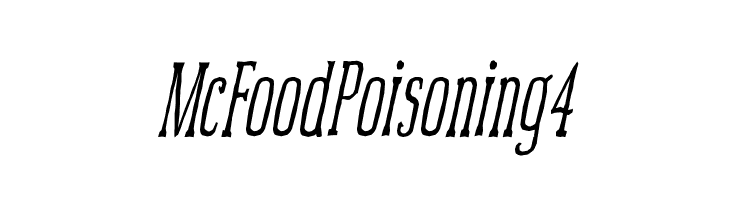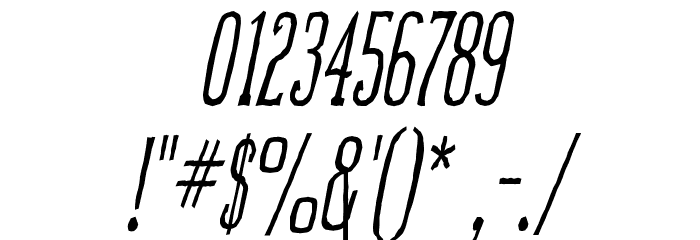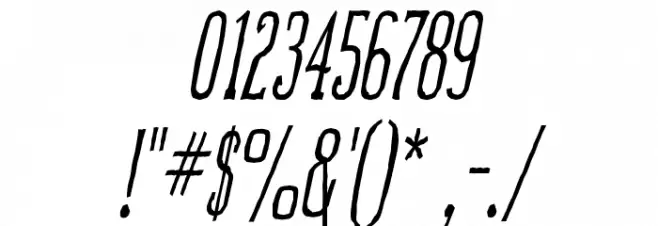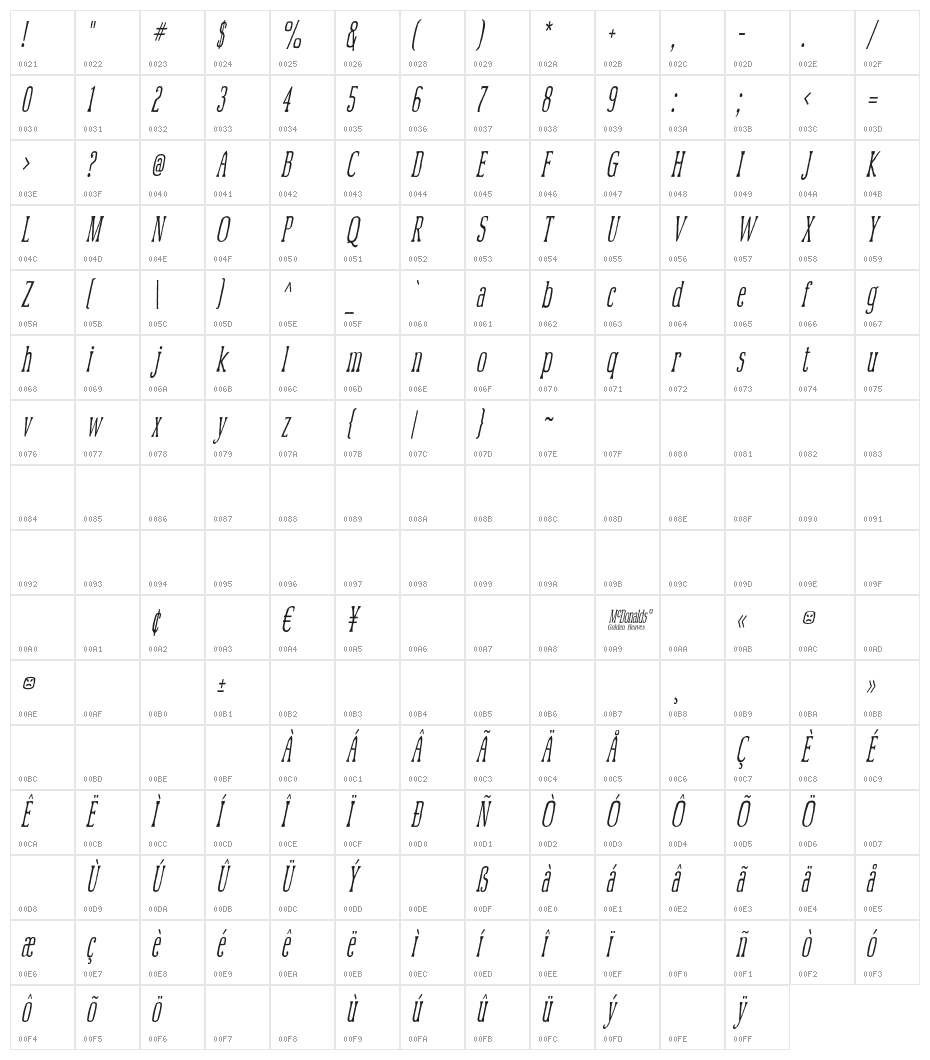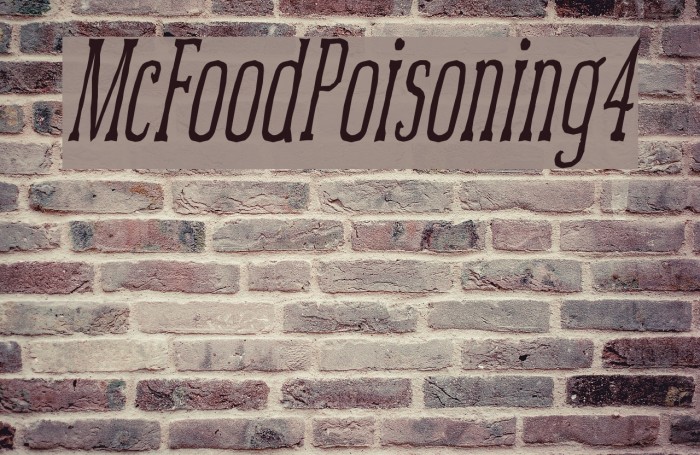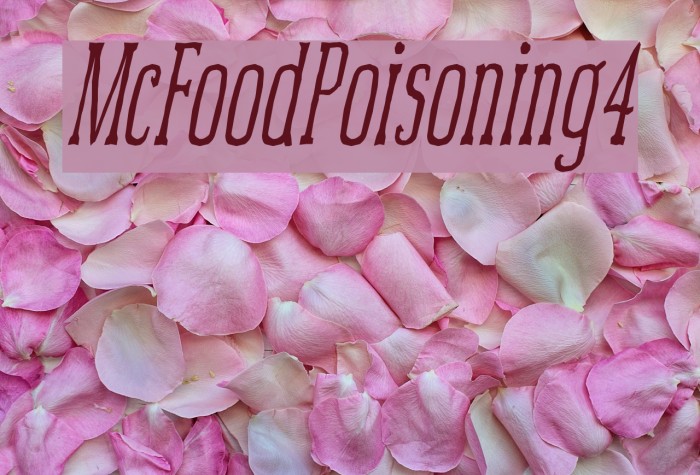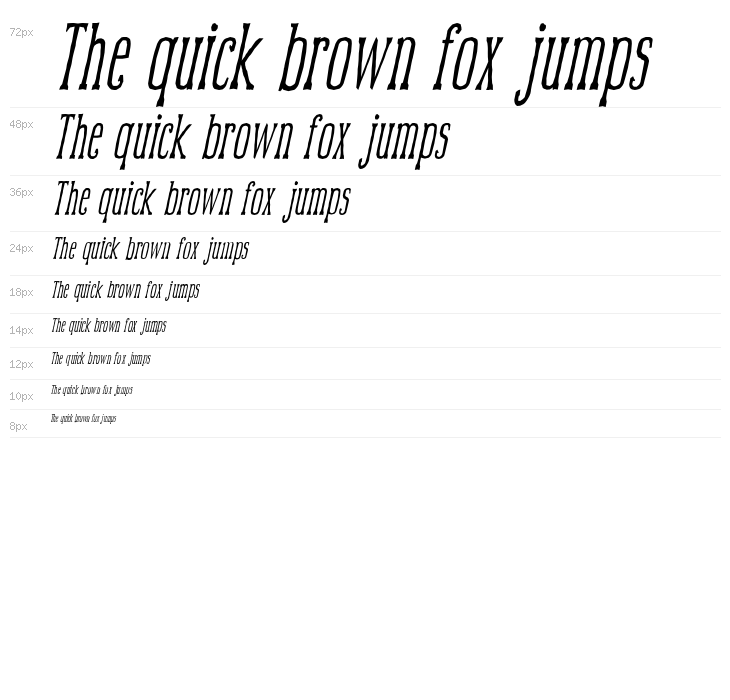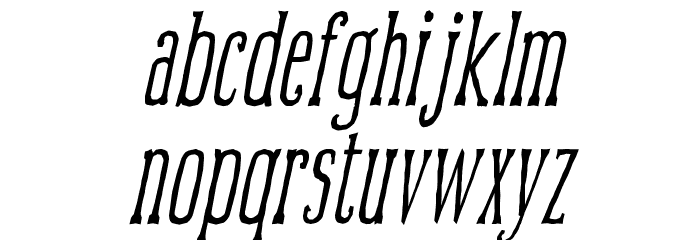
McFoodPoisoning4 Font
McFoodPoisoning4 Description
This font features a dynamic and energetic style with a slight slant, giving it a sense of motion and urgency. The characters are elongated and narrow, with sharp, pointed serifs that add a touch of elegance and sophistication. The uppercase letters are tall and commanding, while the lowercase letters maintain a consistent flow, enhancing readability. The numerals are distinct and align well with the overall design, making them suitable for various applications. Special characters are crafted with the same attention to detail, ensuring they integrate seamlessly with the rest of the font.
| Proposed Projects | Ideal for branding, posters, and editorial design where a sense of movement and elegance is desired. |